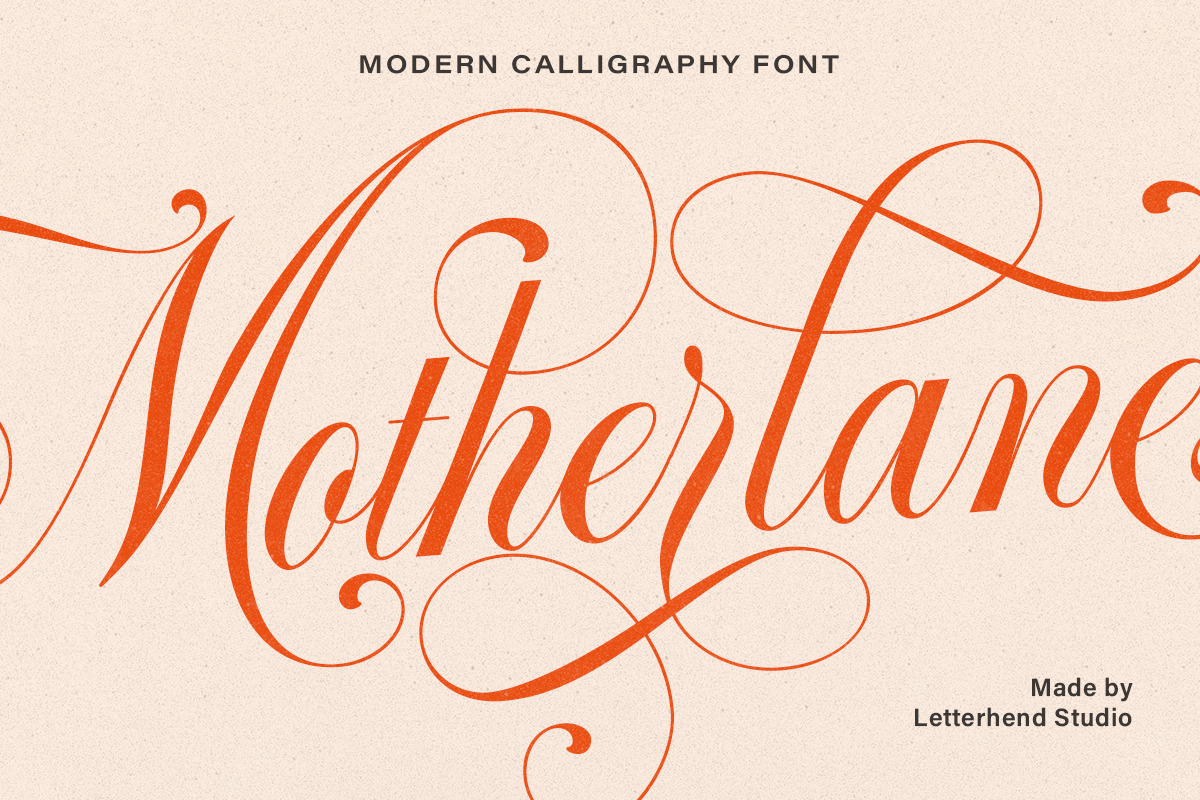
Step into the world of effortless sophistication with Motherlane – a premium elegance modern calligraphy script font meticulously crafted from real hand writing. This isn’t just a typeface; it’s a movement on the page. Each stroke pulses with life, each curve dances with grace, and every swash unfolds like a whispered secret. Whether you’re designing a luxury wedding invitation, crafting a bold brand identity, or adding soul to a fashion campaign, Motherlane brings undeniable elegance and undeniable presence to every project.
Experience the Beauty of Natural, Hand-Crafted Flow
At the heart of Motherlane is the rhythm of true manual writing. Captured from authentic handwriting, the font features fluid, expressive strokes that move naturally from letter to letter. The defining feature? The delicate yet dramatic swashes that grace the terminals of many characters. These elegant flourishes don’t just decorate – they elevate the entire composition, adding a dynamic layer of sophistication that transforms simple text into visual art. The natural inconsistencies in line weight, slight variations in stroke thickness, and the organic connection between letters ensure your text never looks rigid or mechanical. You aren’t just typing; you’re creating a work of art.
Rich Feature Set for Professional Precision
Motherlane is engineered for creative professionals who demand both beauty and functionality:
- Full Uppercase & Lowercase Alphabet: Cover every letter in your message with perfect consistency and style.
- Complete Numerals & Punctuation: Perfect for precise copy, labels, and data integration without breaking the flow.
- Extensive Alternates & Ligatures: Choose from multiple unique glyph forms for each character. Use ligatures to enable seamless, natural connections between letters, ensuring your lines look hand-illustrated, never forced or clunky.
These features aren’t just checkboxes – they’re tools to unlock the font’s full expressive potential.
Where Elegance Meets Impact: Perfect Applications
Design with purpose. Motherlane is purpose-built for projects that demand visual impact and emotional resonance. Use it to:
- Design wedding invitations, save-the-date cards, and guest books that set the tone for a day of love and luxury.
- Develop bold, memorable logos and brand identities for lifestyle products, fashion houses, spas, and high-end beauty lines.
- Create stunning packaging and labels for perfumes, cosmetics, premium food and beverage brands, and artisanal goods.
- Enhance magazines, editorial spreads, and books in the fashion, lifestyle, and arts sectors.
- Produce elegant stationery, greeting cards, and personalized gifts with a touch of refined charm.
- Amplify advertising campaigns and social media visuals with a script that stands out, commands attention, and tells a story.
Motherlane speaks to discerning audiences. It signals quality, care, and a deep appreciation for detail.
Elevate Your Design: Perfect Pairing Strategies
To let Motherlane shine, pair it with complementary typefaces that create visual harmony and balance:
- Serif Fonts: Pair with a classic serif (like Playfair Display or Georgia) to create a timeless, sophisticated contrast.
- Minimalist Sans-Serifs: Use a clean, modern sans-serif (like Helvetica Now or Neue Haas Grotesk) as a stable backdrop to let the script dominate.
Remember: Motherlane is the statement. Let the supporting typeface keep the focus where it belongs – on your elegant, hand-crafted masterpiece.
Pro Tip: Maximize Impact with Strategic Styling
Don’t just type; curate. Select different alternates to avoid repetitive letter forms. Fine-tune spacing manually for a more dynamic, human feel. And for print or high-resolution output, convert to outlines to preserve every delicate swash and flourish in their full, intended glory.
Choose Motherlane. Elevate your craft. Let every word tell a story of refined elegance.